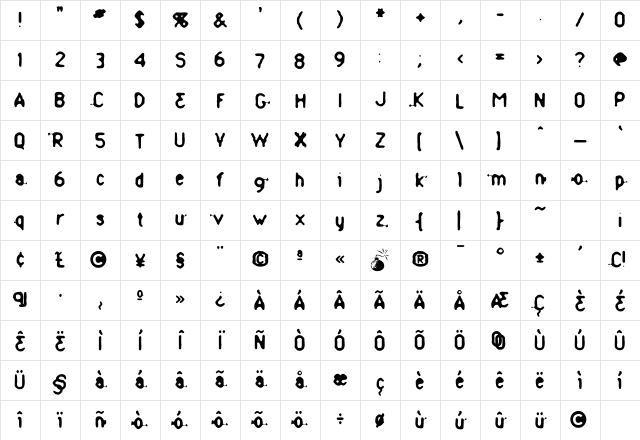
Ammonia Medium
Design Context for Ammonia
Ammonia is a composed and adaptable typeface that performs quietly and consistently across a wide range of design contexts.